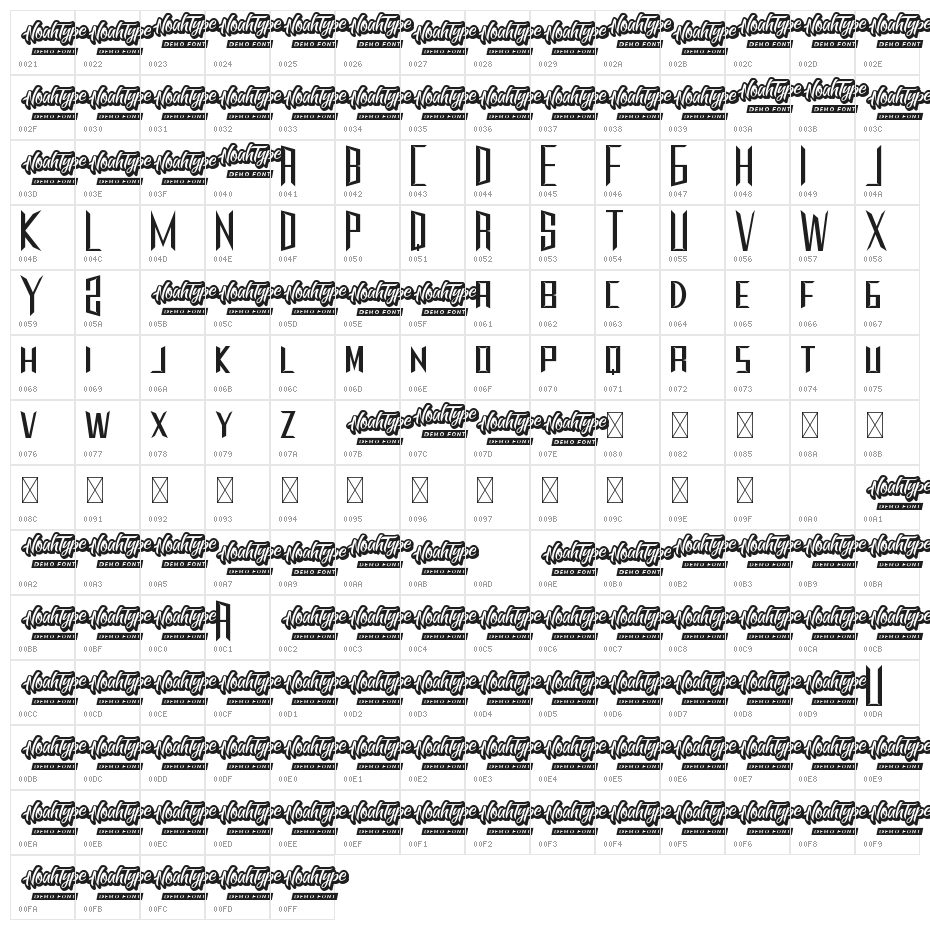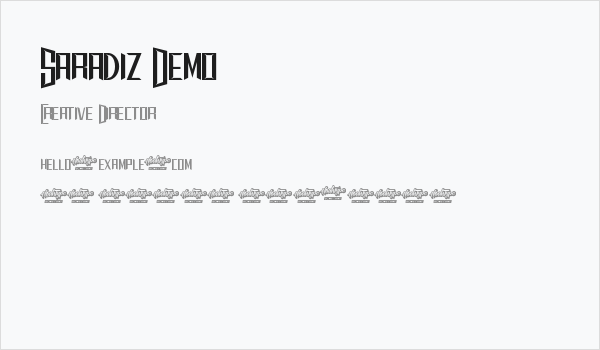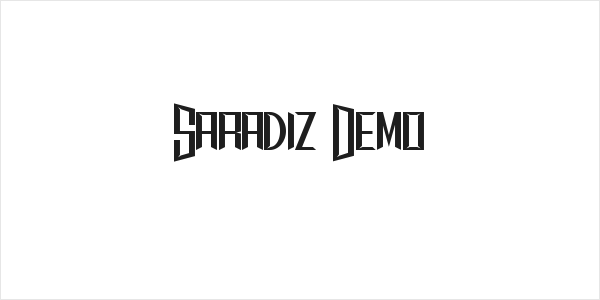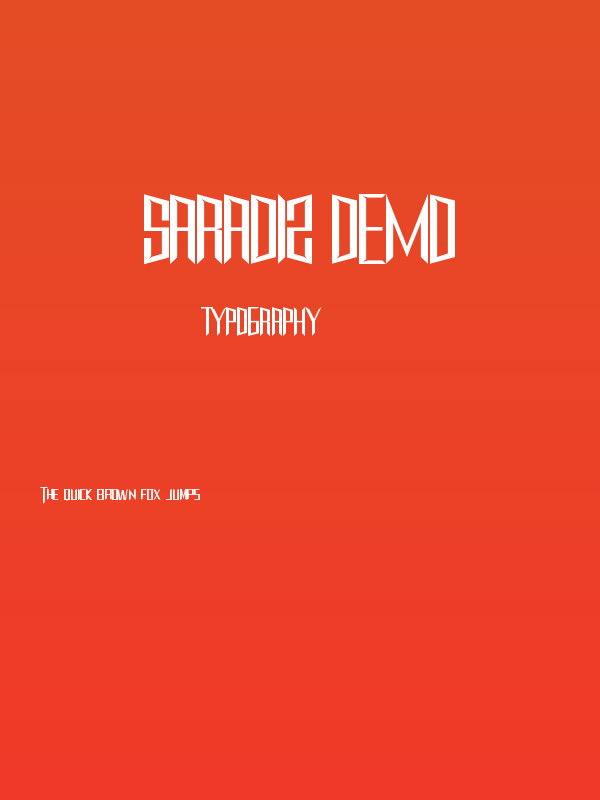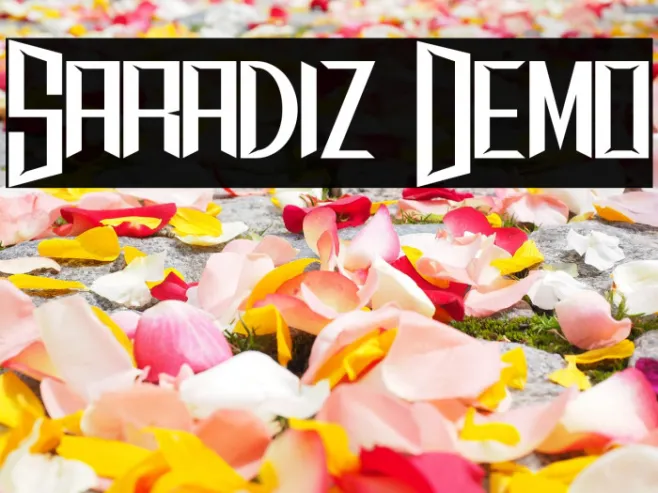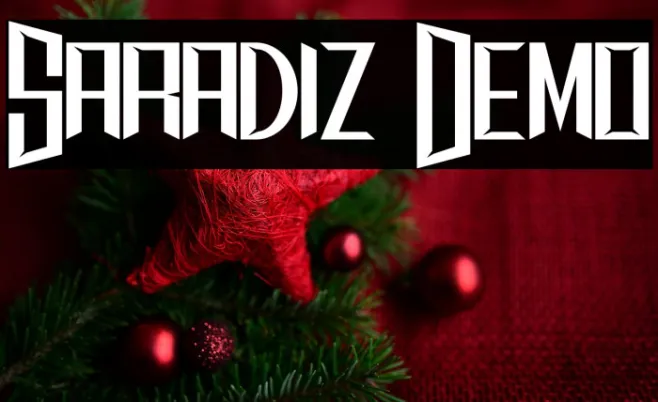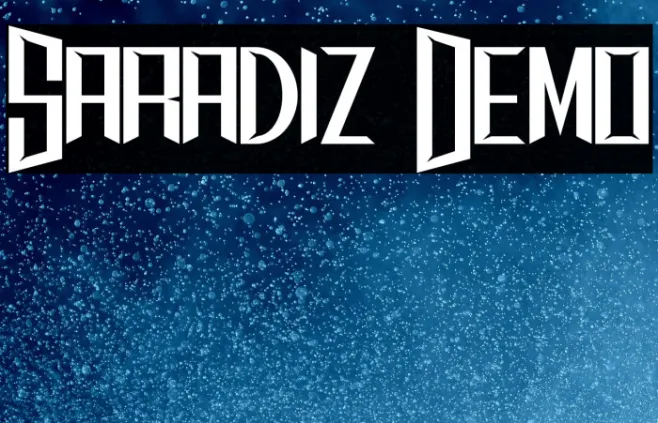
Saradiz Demo Font
Saradiz Demo Description
This font features a bold, geometric design with sharp angles and a strong presence. The uppercase letters are characterized by their tall, narrow forms and distinct angular cuts, giving them a modern and edgy appearance. The lowercase letters maintain the same angular style, ensuring consistency throughout the typeface. The numbers and special characters are designed to match the overall aesthetic, with similar geometric shapes and bold lines. This font is highly decorative and makes a strong visual impact, suitable for projects that require a striking and contemporary look.
| Proposed Projects | Ideal for branding, posters, album covers, and any project requiring a bold, modern aesthetic. |